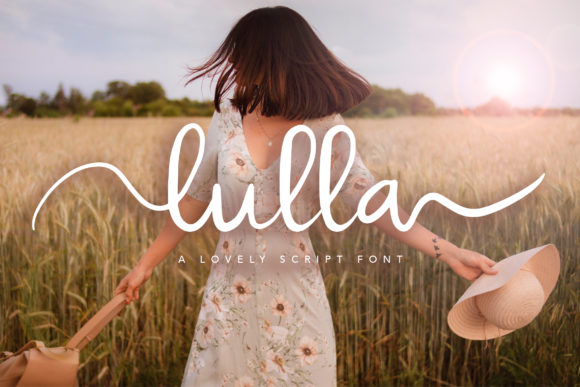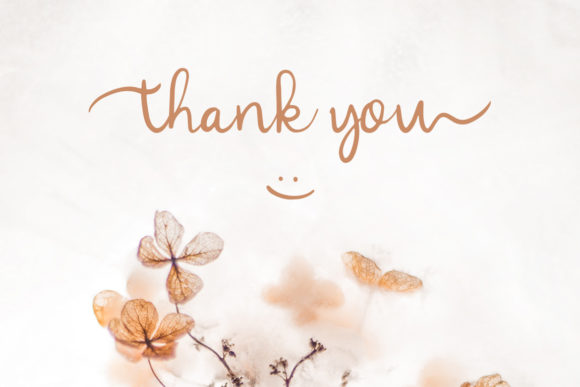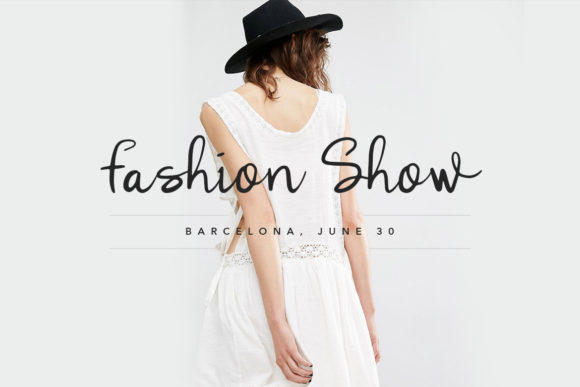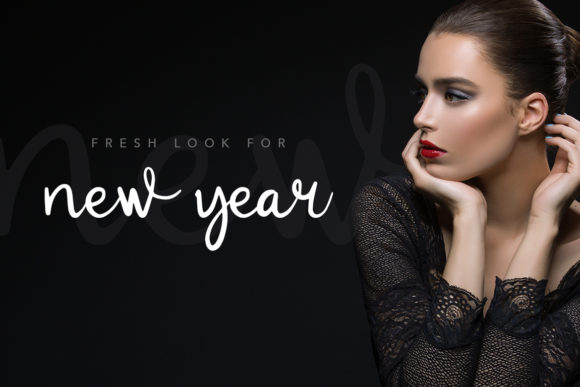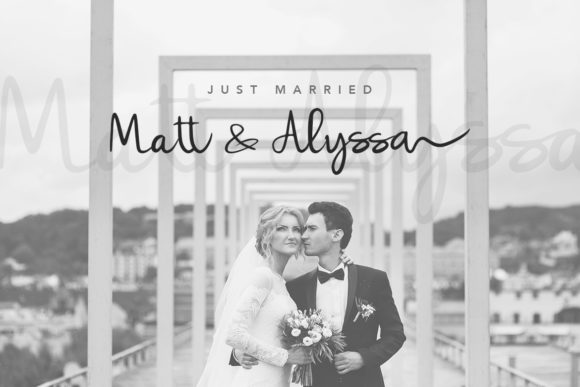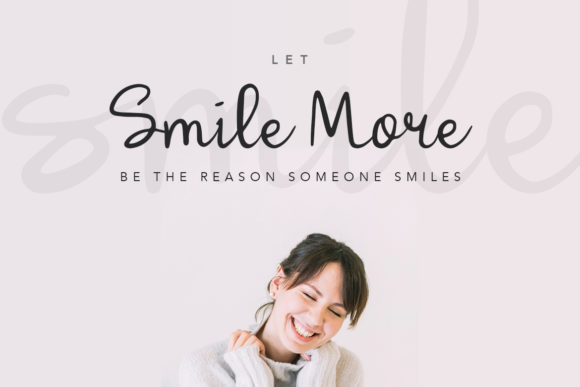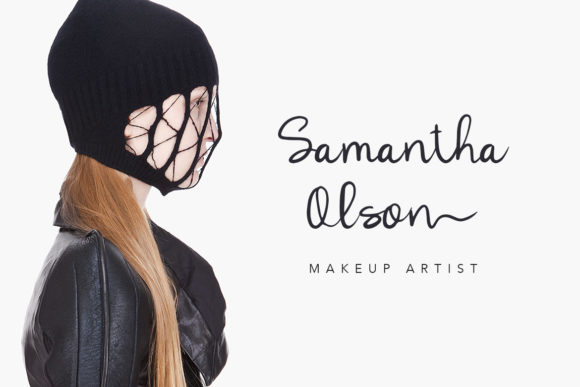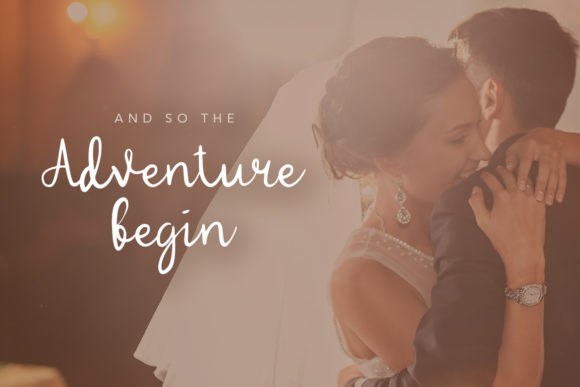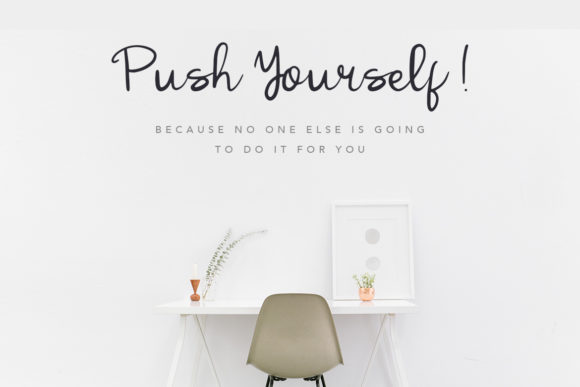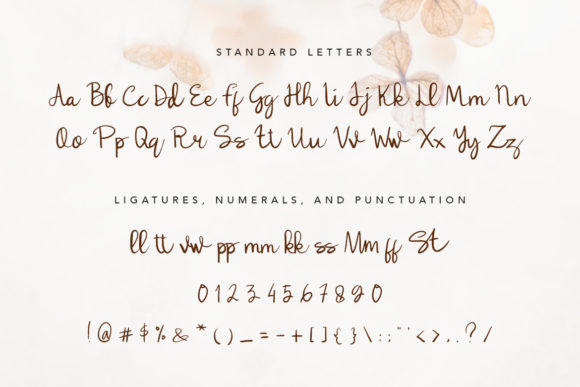
HomeScript FontsLulla Font Script Fonts Lulla Font FacebookXPinterestWhatsApp Lulla Font Poster 2 Lulla Font Poster 3 Lulla Font Poster 4 Lulla Font Poster 5 Lulla Font Poster 6 Lulla Font Poster 7 Lulla Font Poster 8 Lulla Font Poster 9 Lulla Font Poster 10 About Lulla Font Lulla is a simple, yet adorable handwritten font with a romantic twist. This beautiful script is a true standout! DOWNLOAD ON CREATIVE FABRICAThis font is sold and delivered by Creative Fabrica. Font Canyon may earn a commission if you buy through this link. People also explored Contento Font Brass Rule Script Leslie Dawn Font Sydney Charlize Font Bohemian Rapsody Play Dreidel Font Hello Billy Font Glowsan Font Calligraphia Font 304 0 TagsLulla Font Previous articleOrlando FontNext articleQalin Duo Font LEAVE A REPLY Cancel reply Comment: Please enter your comment! Name:* Please enter your name here Email:* You have entered an incorrect email address! Please enter your email address here Website: Save my name, email, and website in this browser for the next time I comment. Personal Use Free 1980 Portable Personal Use Free Read more about this font Rosebirth Personal Use Free Read more about this font Omira Personal Use Free Read more about this font GoodFay Personal Use Free Read more about this font BLOG To increase your work productivity, choose the most readable fonts. In today's fast-paced work environment, where digital communication and information consumption are integral to our daily routines, the choice of fonts can significantly impact... Best Fonts for YouTube Videos: Make Your Thumbnails Stand Out Best Fonts for T-Shirt Design – Top 2025 Picks How to Install and Use Fonts on Windows, macOS, and Web Projects